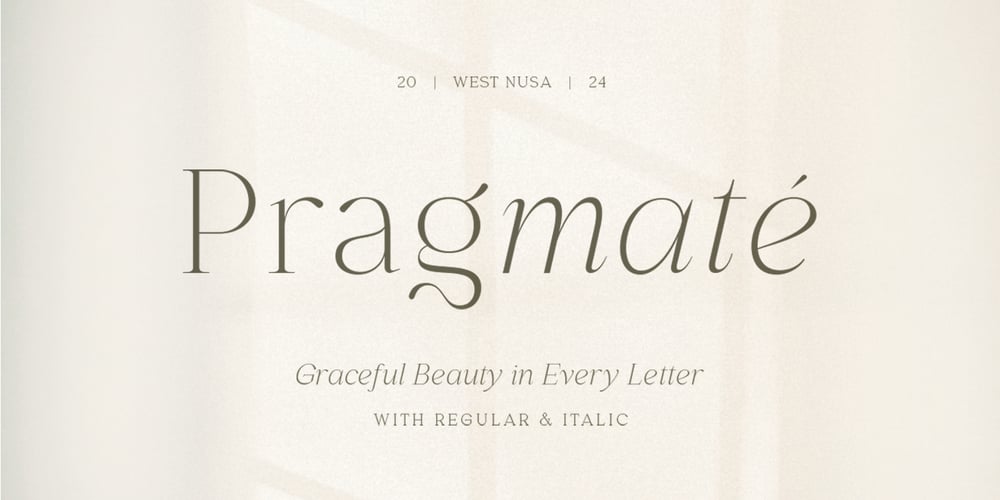
Pragmate
Pragmate font
Pragmate Font Family was designed by Sarid Ezra, Dzikrul Aulia and published by Bale Type. Pragmate contains 2 styles and family package options. Pragmate is a casual and classy light serif font family available in two styles: Regular and Italic. Its clean and simple design makes it versatile for various applications. You can use this font for branding, quotes, logos, or as a complement to your script fonts. Perfect for both digital and print media, Pragmate also supports multiple languages, enhancing its adaptability and reach.